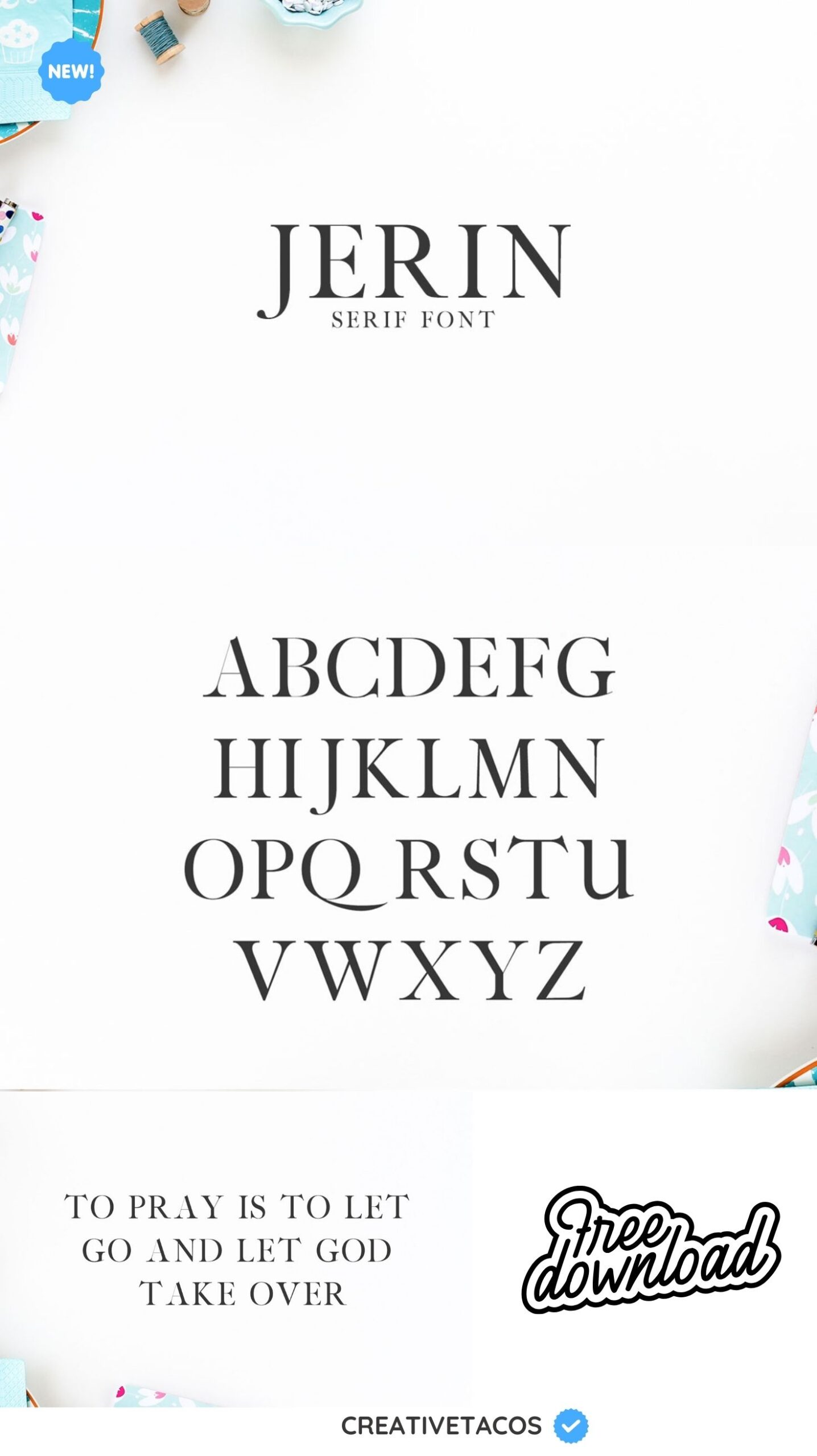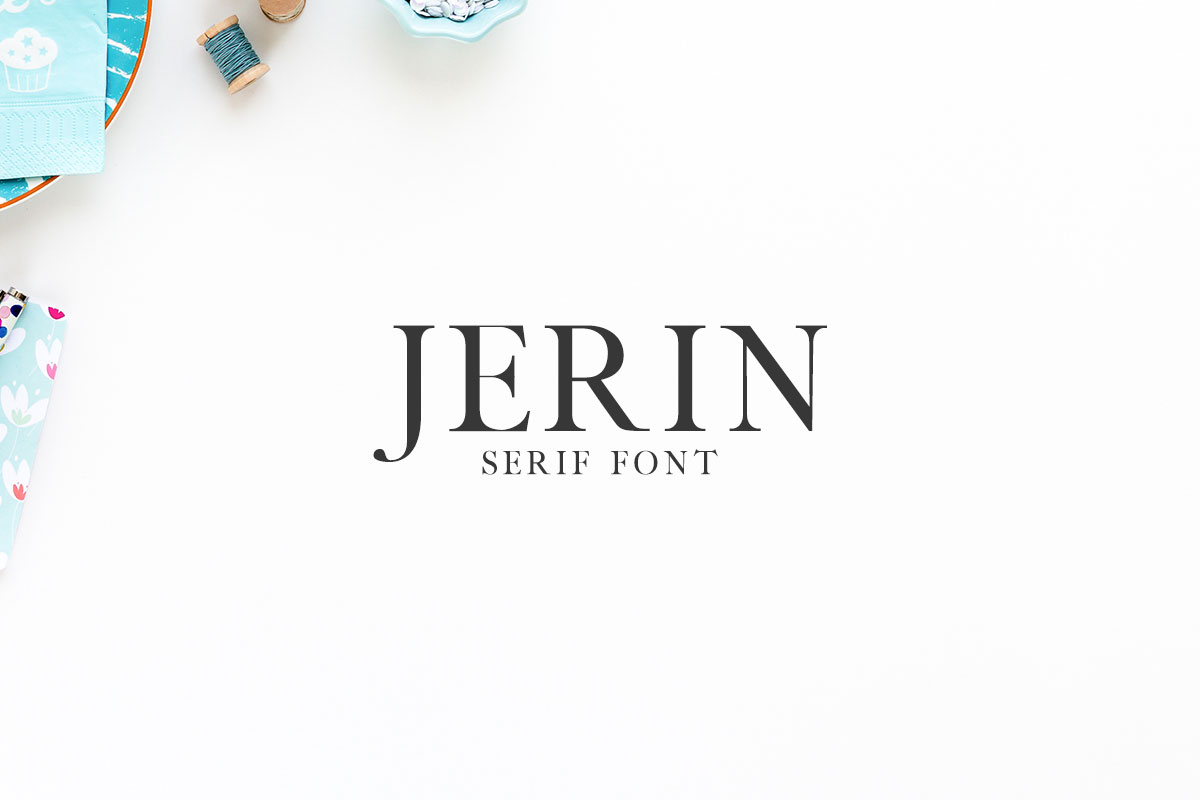
Jerin Serif Font
We are very happy to share Jerin Serif Font, a stylish and sophisticated, sleek lines serif font that looks incredible in every context.
You can pair it beautifully with the sans serif fonts, script fonts, display, signature or handwriting style.
It’s best for website headers, headlines, titles, magazines headings, logo, advertising, posters, quotes, web layouts, invitations, packaging design, books, branding, and nearly any creative design.